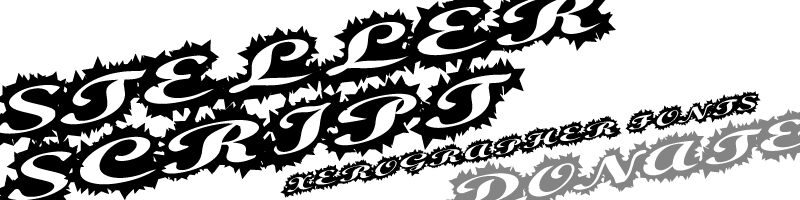
StellerScript by Xerographer Foundry is a free distorted display font with sweeping calligraphic forms. Broad, sharply slanted letters cut through a dense halo of thorn-like spikes and form a loud, abrasive silhouette. The smooth inner strokes remain surprisingly elegant.
Metal labels and alternative fashion brands could use its collision of ornate lettering and ragged edges for logos, packaging, and merchandise. It also suits concert posters and album covers rooted in punk, extreme metal, or other music genres that favor decorative type with a hostile edge.
StellerScript